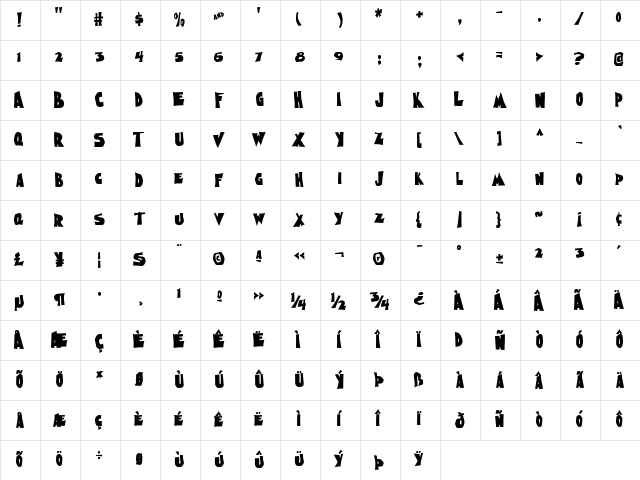
Nightmare AOE Regular
| Foundry | Astigmatic (AOETI) |
| Designer | Brian J. Bonislawsky, Astigmatic |
Design Context for Nightmare AOE Typeface
Nightmare AOE is a composed and adaptable typeface that performs quietly and consistently across a wide range of design contexts.